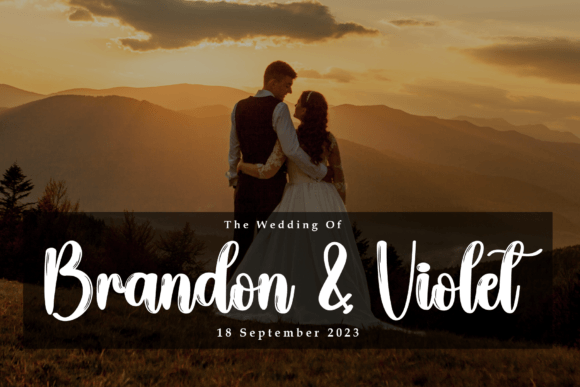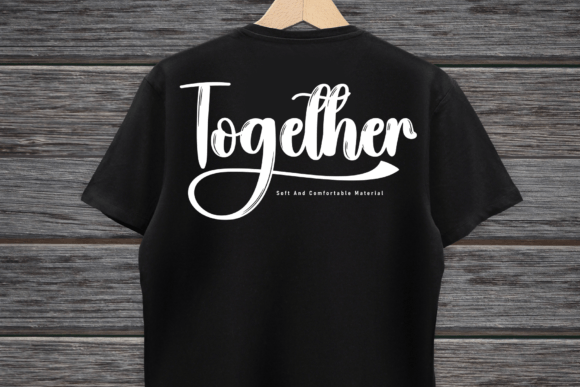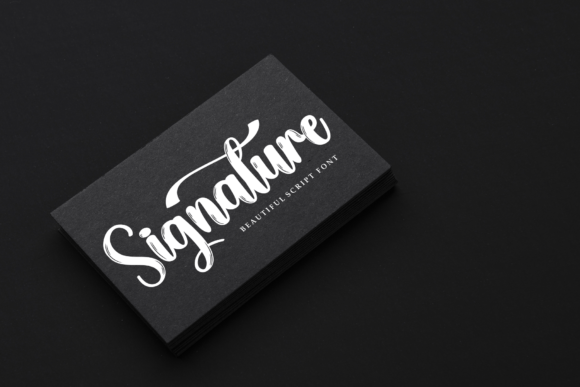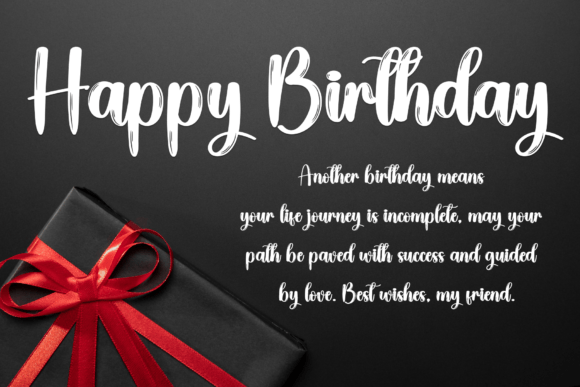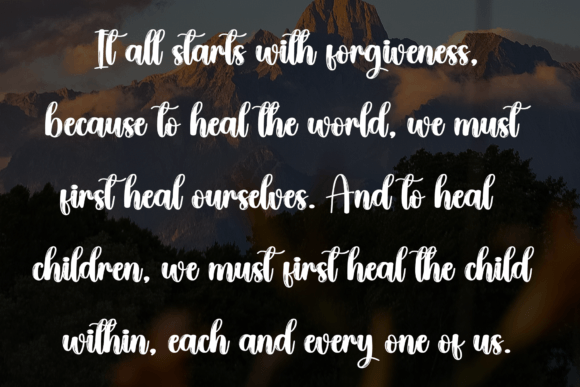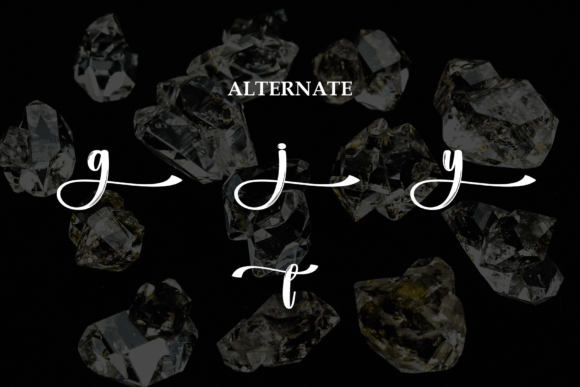
Discover the Charm of Crystals Font: A Sweet and Friendly Handwritten Delight
Are you on the hunt for a font that adds a touch of warmth and personality to your designs? Look no further than Crystals Font, a sweet and friendly handwritten font that’s perfect for a wide range of creative projects. With its natural and unique style, Crystals Font is incredibly versatile, making it an excellent addition to any designer’s toolkit.
The Unique Characteristics of Crystals Font
Crystals Font boasts a distinctive, hand-crafted look that’s both elegant and approachable. Its flowing lines and gentle curves give it a soft, organic feel that’s reminiscent of handwritten scripts. This font’s charm lies in its imperfections, which add a layer of authenticity and human touch to any design. Whether you’re working on a logo, a poster, or a digital project, Crystals Font is sure to bring a sense of warmth and personality to your work.
Endless Design Possibilities with Crystals Font
The only limit to what you can create with Crystals Font is your imagination! This versatile font can be used in a multitude of design applications, from:
- Branding and Logos: Create a memorable brand identity with a custom logo that showcases the unique charm of Crystals Font.
- Stationery and Invitations: Add a touch of elegance and sophistication to your stationery, invitations, and greeting cards.
- Digital Media: Use Crystals Font in social media graphics, blog posts, and website headers to add a personal touch.
- Crafting and Scrapbooking: Add a handmade feel to your scrapbooking and crafting projects with this beautiful font.
Why Designers and Crafters Love Crystals Font
So, what makes Crystals Font a favorite among designers and crafters? Here are just a few reasons:
- Easy to Read: Despite its decorative nature, Crystals Font is surprisingly easy to read, making it perfect for body text and captions.
- Highly Versatile: Crystals Font can be used in a wide range of design applications, from formal to informal projects.
- Unique and Memorable: This font’s distinctive style ensures that your designs will stand out from the crowd and leave a lasting impression.
Tips for Getting the Most Out of Crystals Font
To make the most of Crystals Font, here are a few design tips to keep in mind:
- Experiment with Colors: Crystals Font looks great in a variety of colors, so don’t be afraid to experiment and find the perfect hue for your design.
- Play with Pairings: Try pairing Crystals Font with other fonts to create a unique and visually appealing combination.
- Keep it Simple: Don’t over-accessorize your design – sometimes, less is more, and Crystals Font shines best when used on its own.